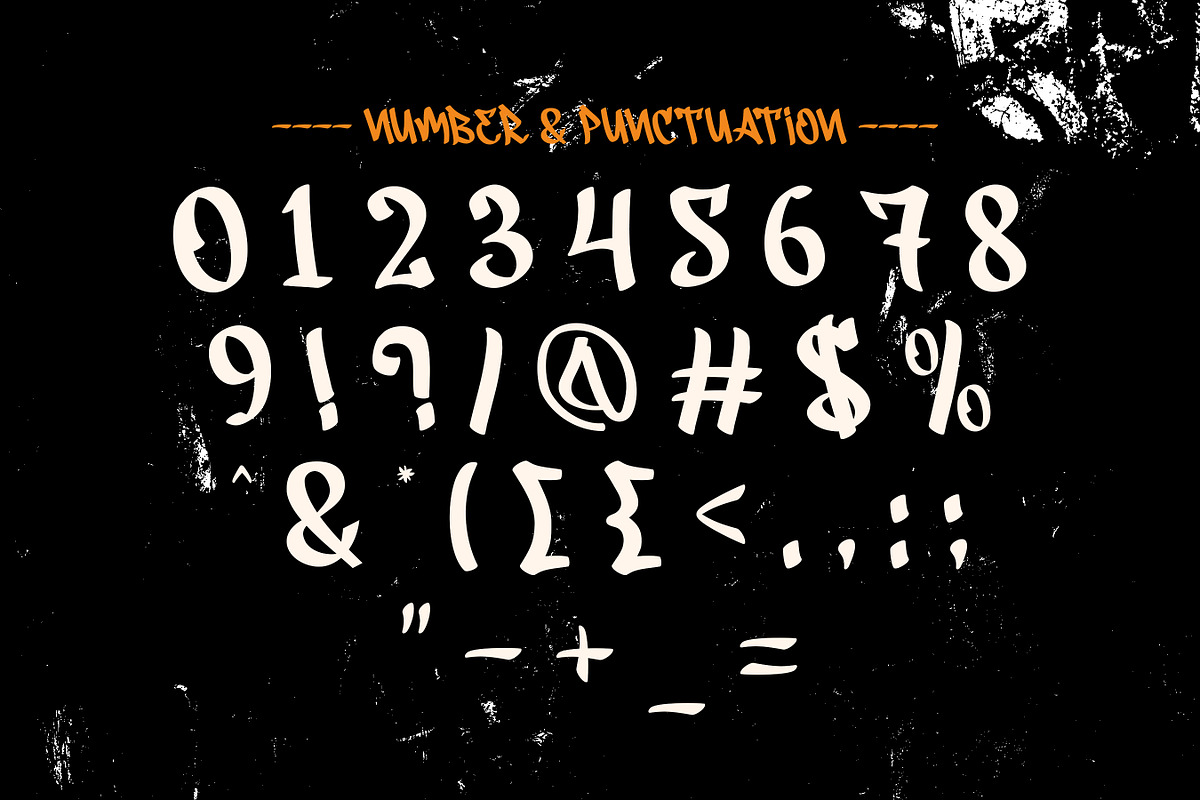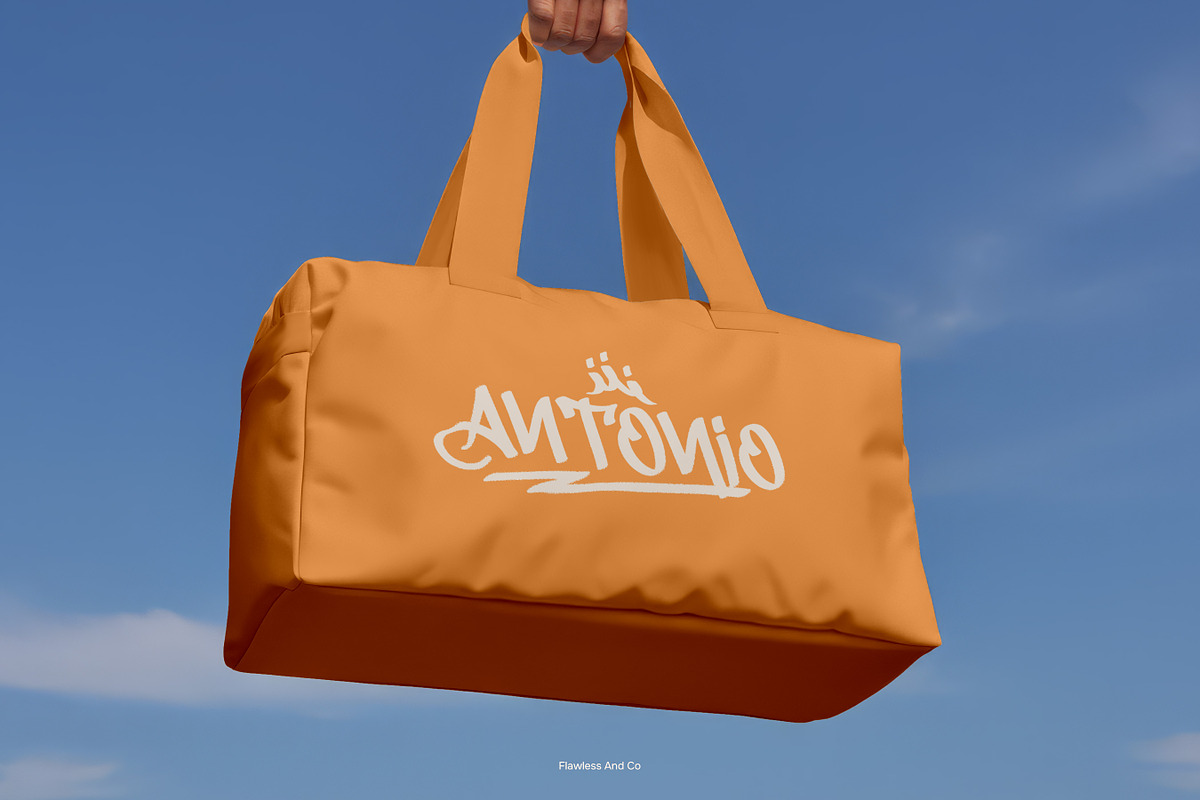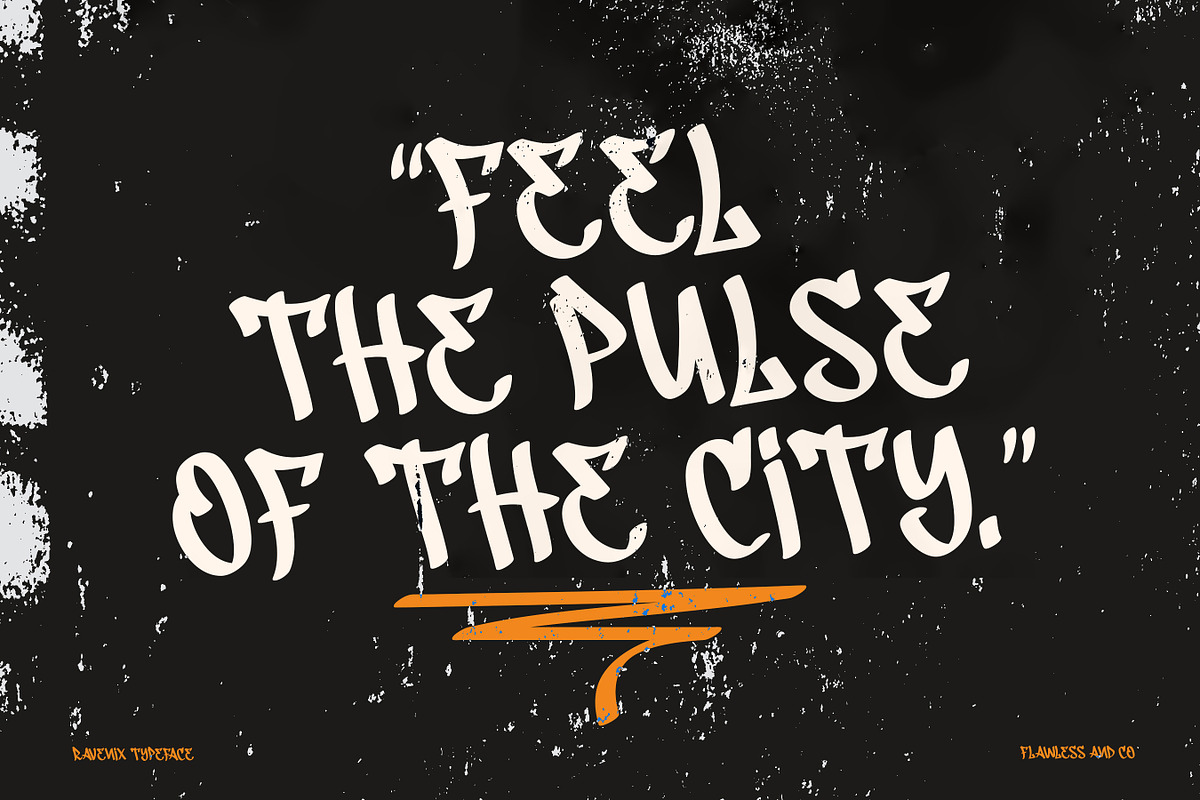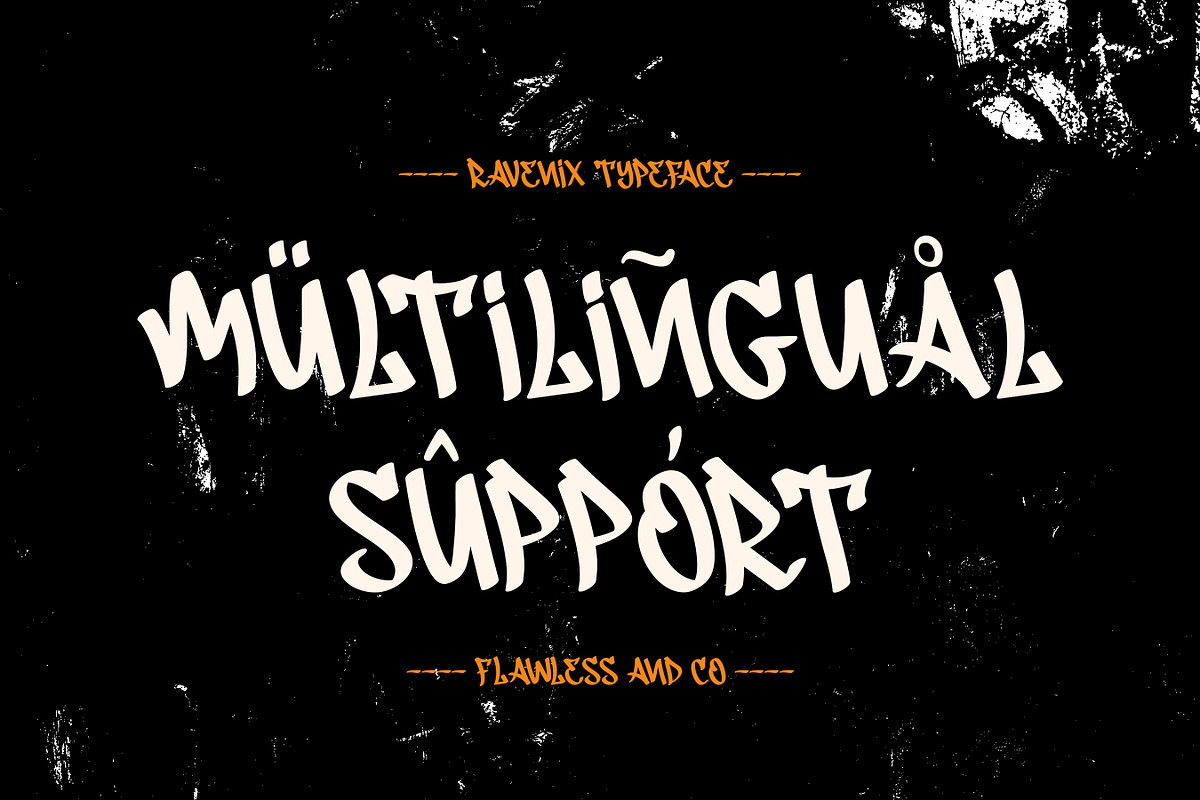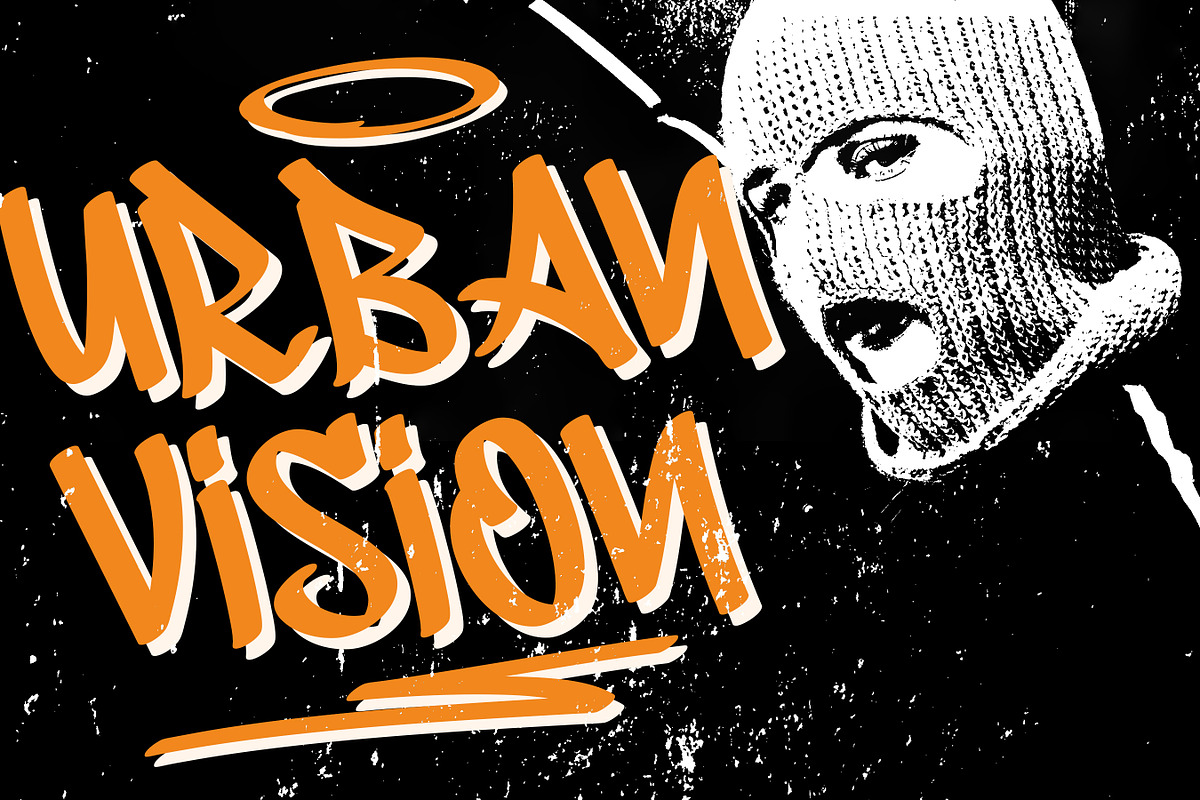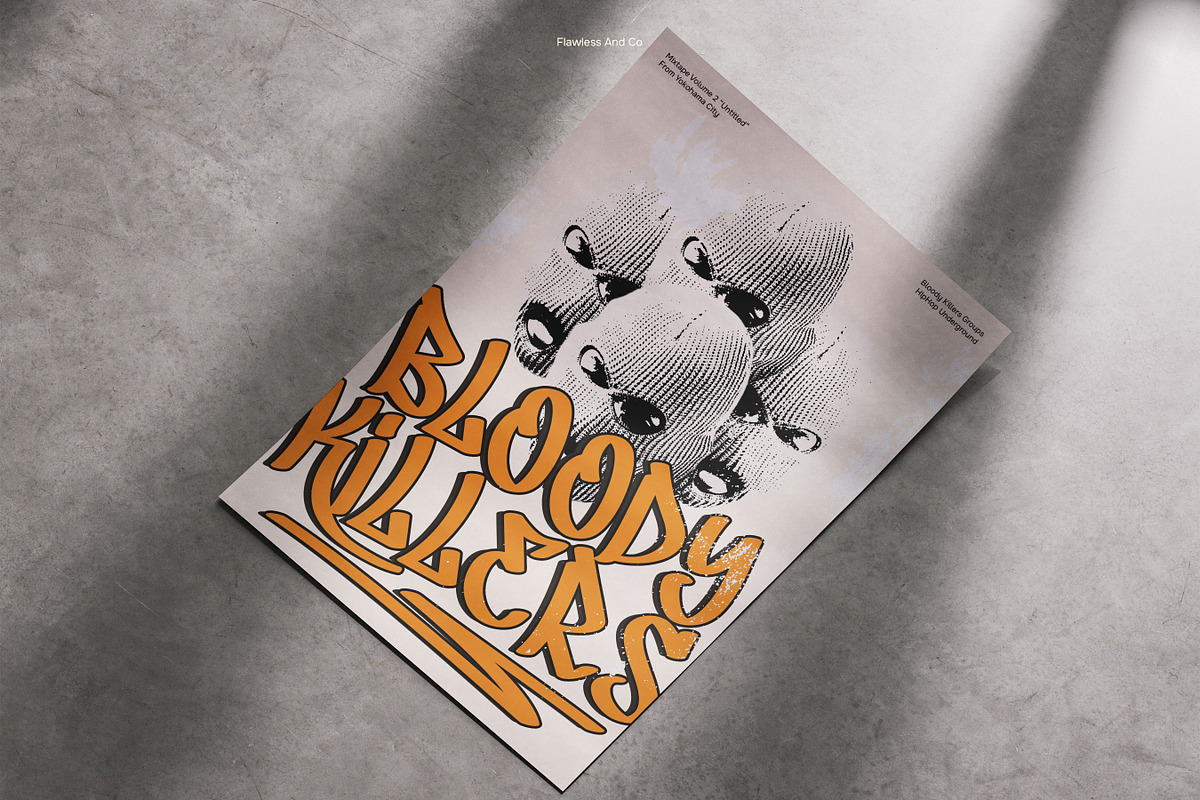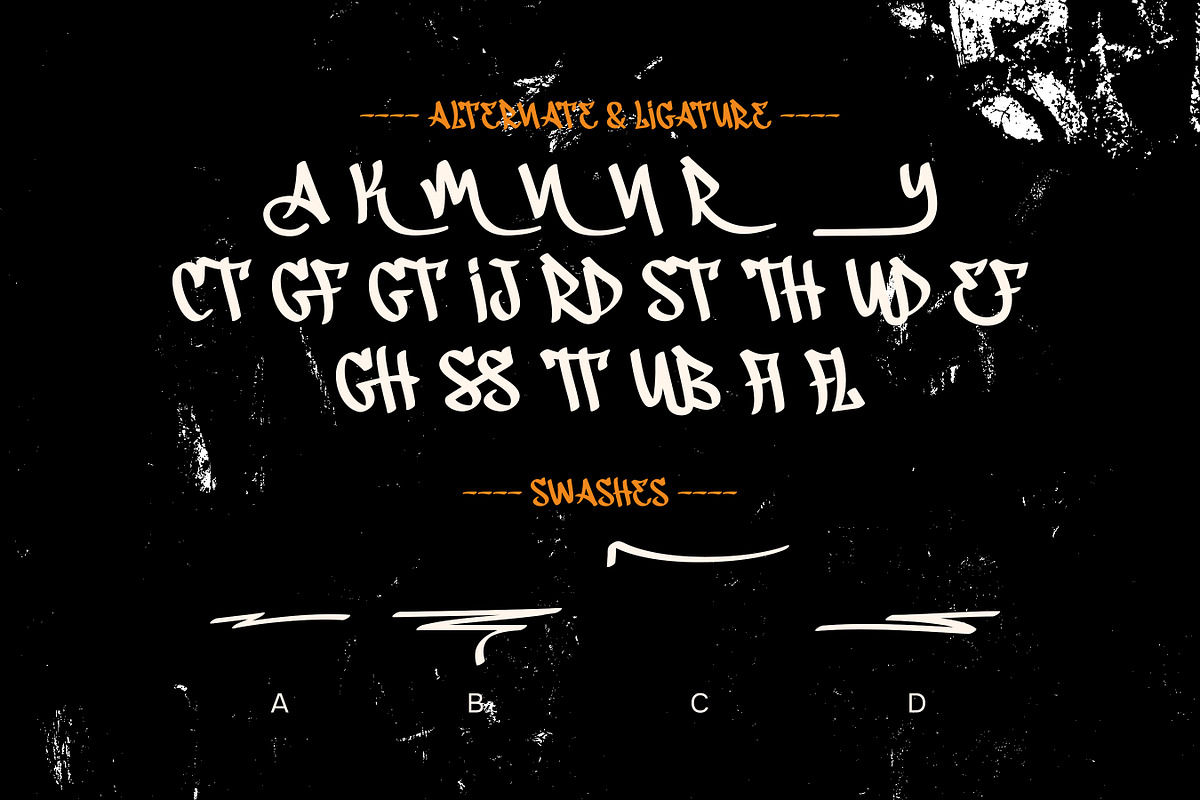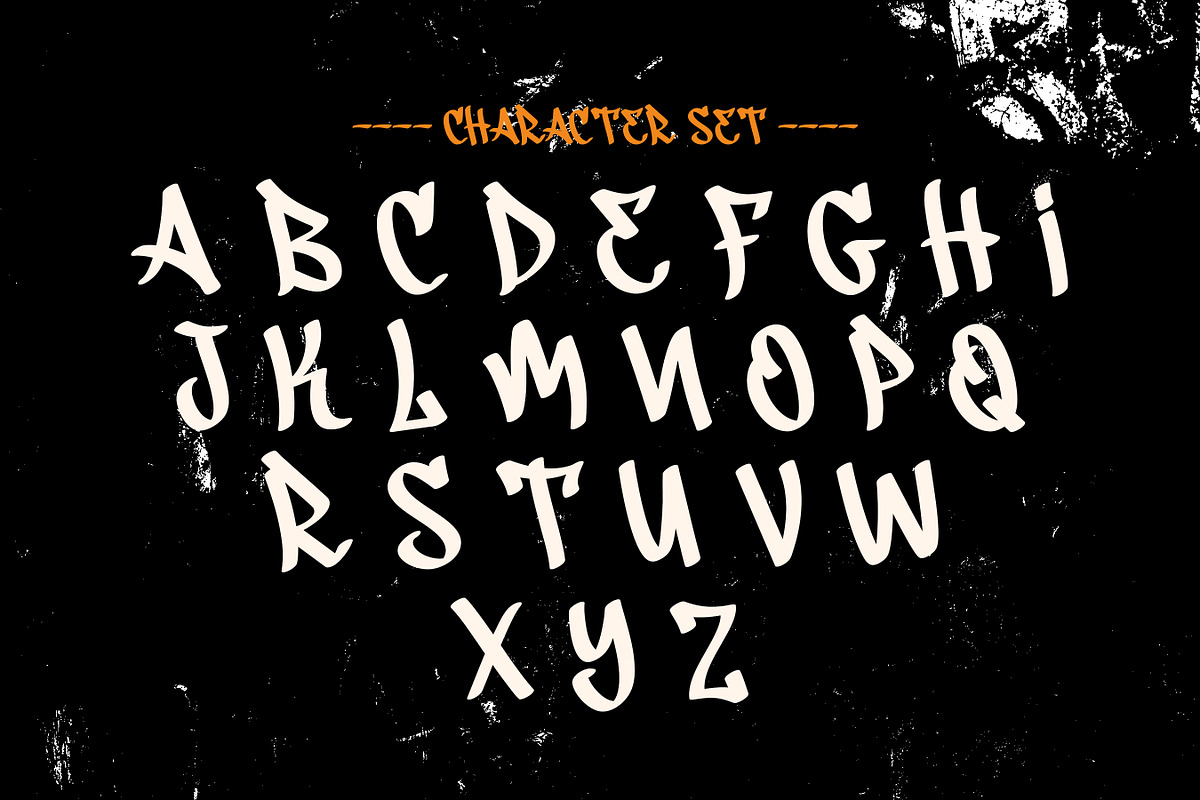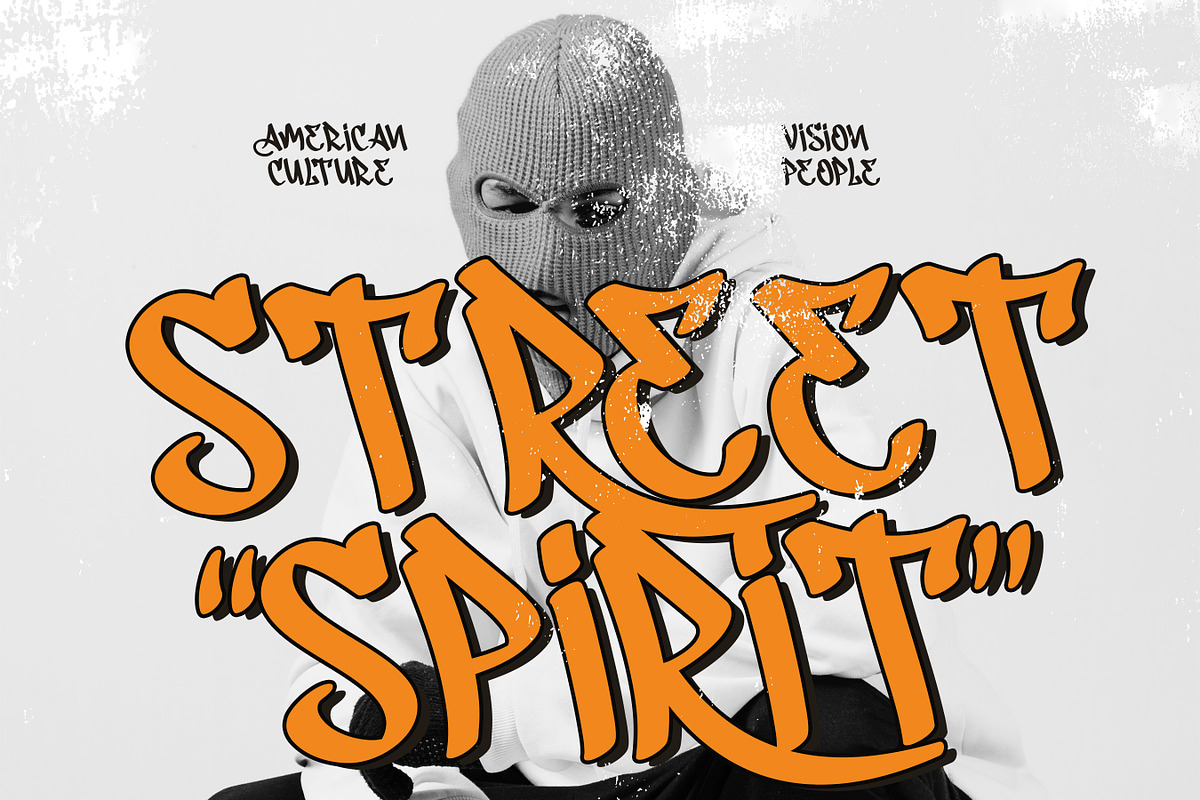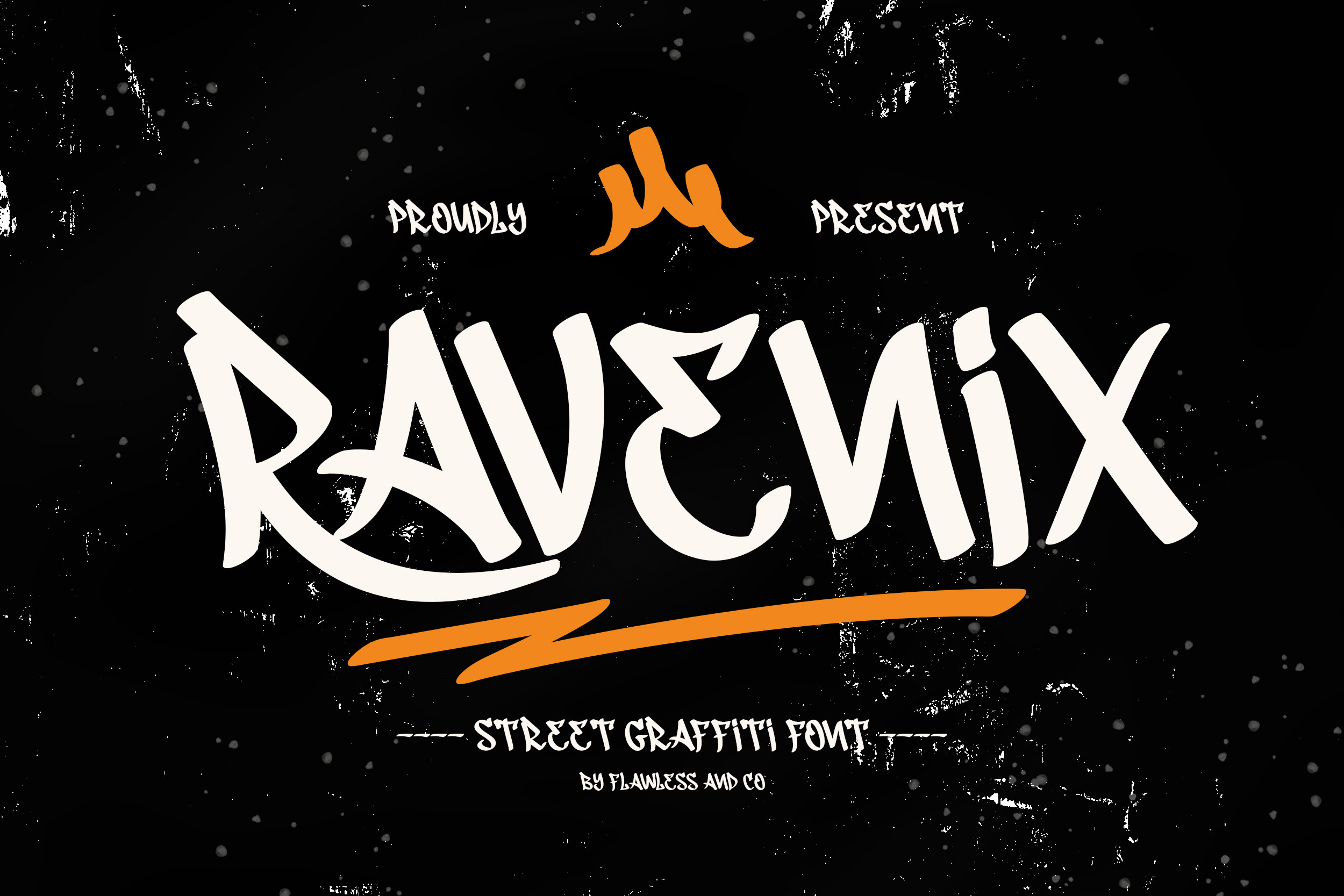
Ravenix - Urban Graffiti Font
Ravenix - Urban Graffiti Display Font
Ravenix is a bold urban graffiti brush display typeface that brings together raw street energy, expressive brush strokes, and a dynamic handcrafted character. Its edgy letterforms create a strong visual impact, making it perfect for designs that need a rebellious and contemporary street-inspired feel.
Uppercase & Lowercase Alternates & Ligatures Numerals & Punctuation Multilingual Support
Who Should Use Ravenix?
Ravenix is perfect for designers and creatives who love bold street aesthetics, expressive brush lettering, and urban-inspired typography. It’s ideal for brands, artists, musicians, and creative projects looking for a distinctive display font with a raw, energetic, and rebellious personality.
Suitable For:
Urban Branding Logo Design Street-Inspired Graphics Music Artwork Album & Cover Design Poster Design Event Graphics Entertainment Branding Social Media Graphics Advertising Digital Campaigns Creative Typography Headline Design Editorial Graphics Illustrated Designs Urban-Themed Artwork Promotional Graphics